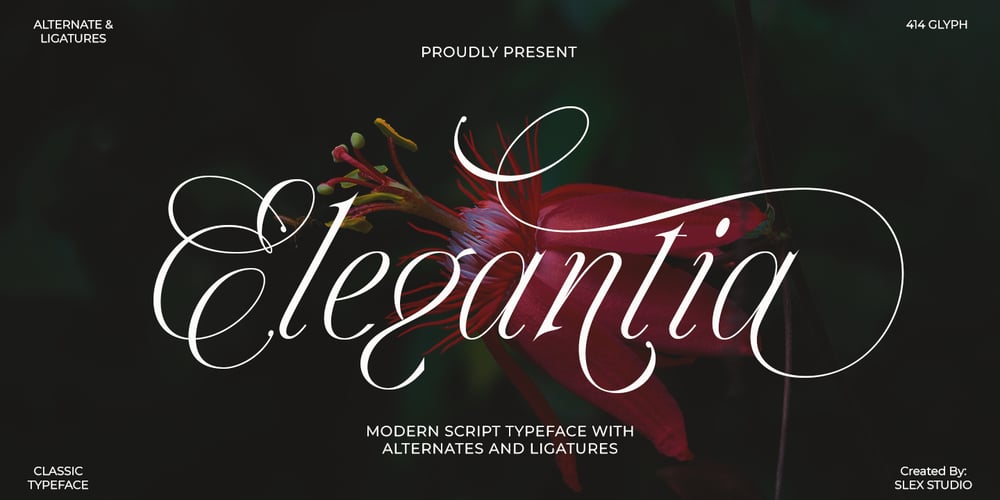
Elegantia Pro Font Family was designed by Muhammad Rayyan and published by Slex Studio. Elegantia Pro contains 1 styles and family package options. The Elegantia font with Glyph Latin Pro is a sophisticated display typeface designed to exude elegance, modernity, and luxury. It is perfect for projects that require a refined and stylish touch, such as logos, headlines, wedding invitations, or high-end graphic designs.The font showcases smooth, flowing curves and a symmetrical structure. Its serif style provides a classic and formal feel, while still maintaining a fresh, contemporary appearance.With the inclusion of the Latin Pro glyph set, this font supports a wide range of additional characters, ideal for various European languages, as well as symbols and numbers, making it versatile for global use without compromising its aesthetic appeal.Overall, Elegantia is well-suited for projects that aim to convey luxury and professionalism, offering the flexibility of multiple Latin glyphs for international needs.